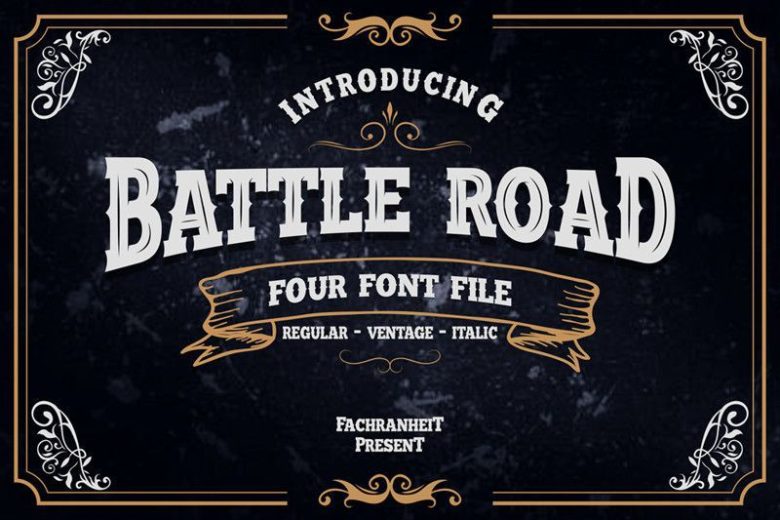
Battle Road Typeface
The Battle Road is an old, vintage display typeface. It has regular characters and a ventage style. It can be used for logos, t-shirts, quotes, badge, branding, headers, labels, packaging and much more!